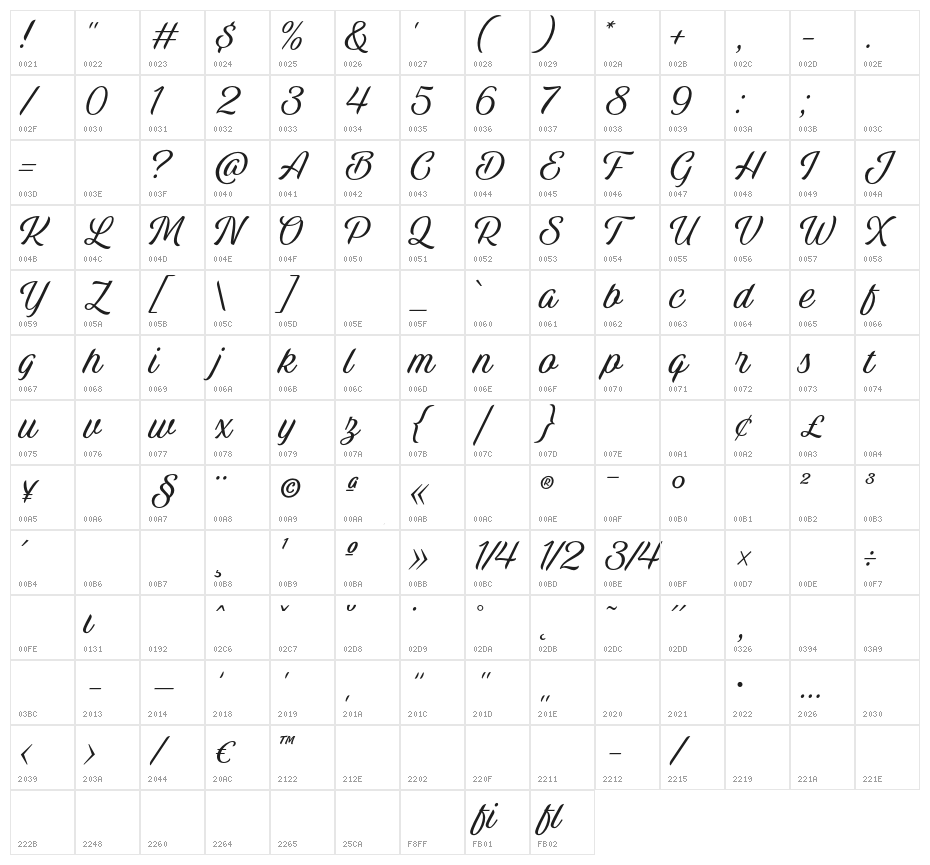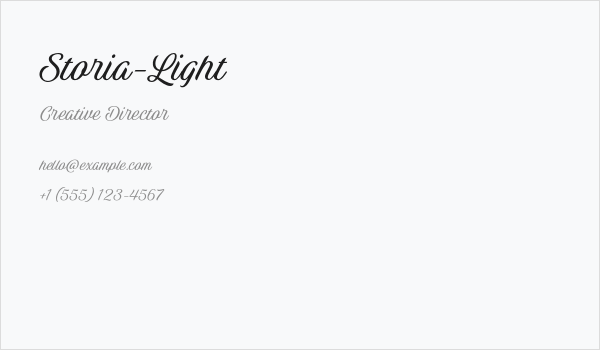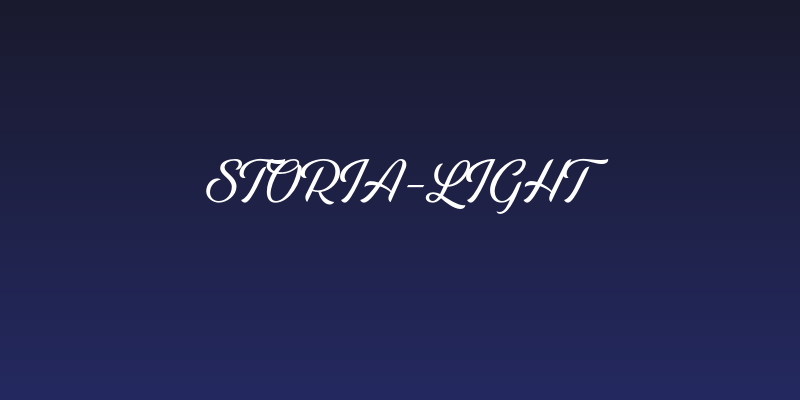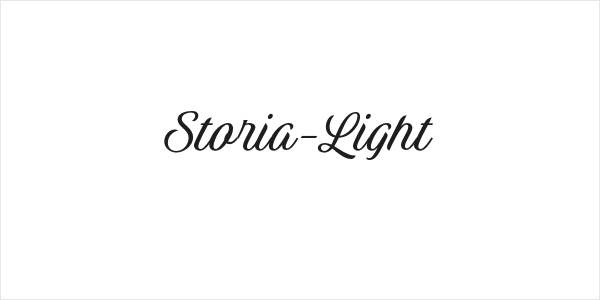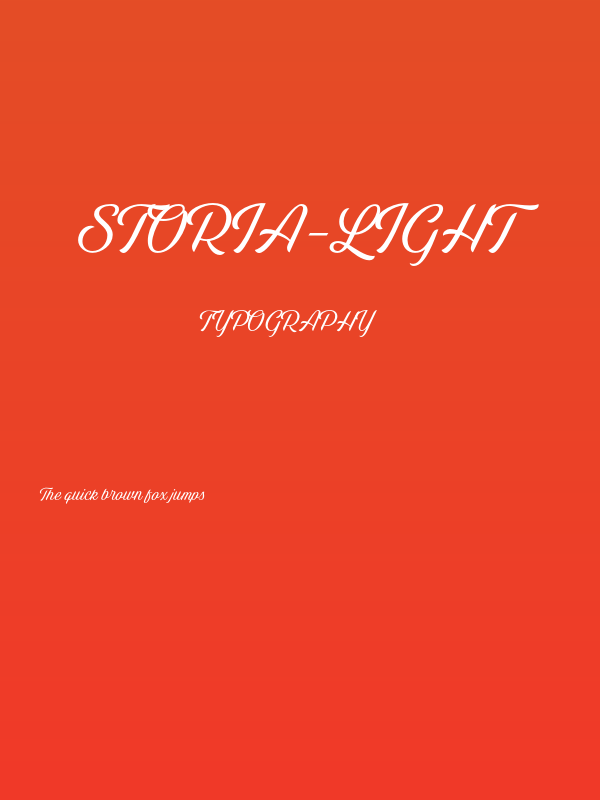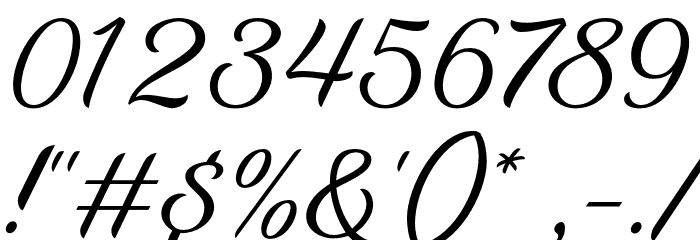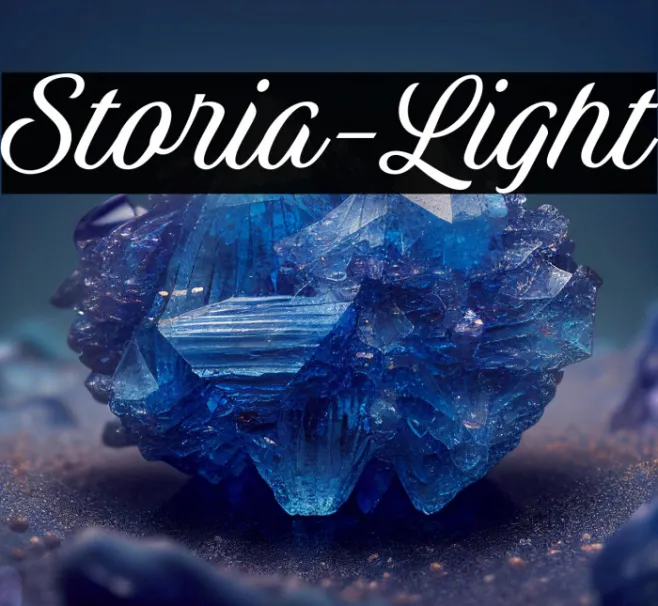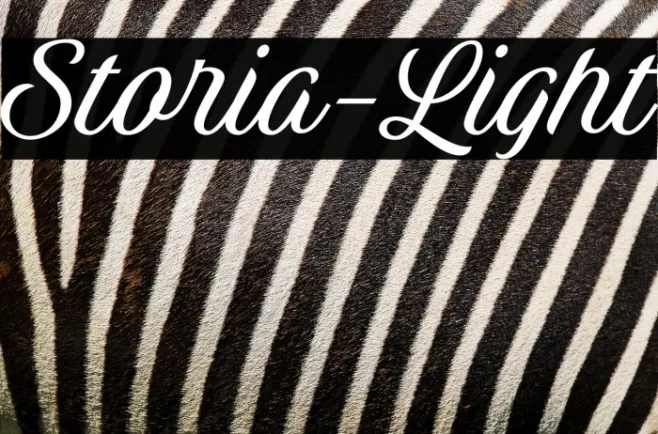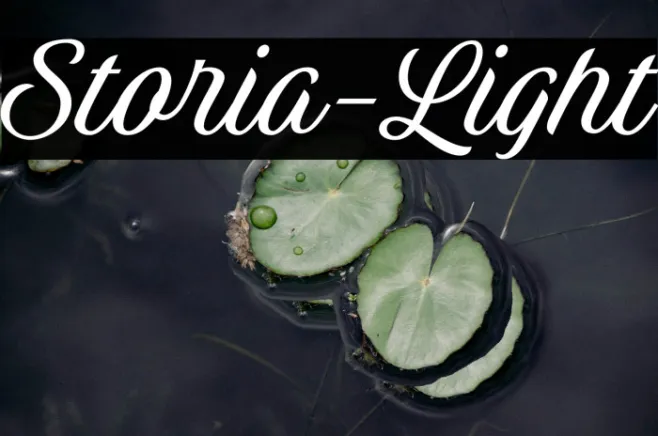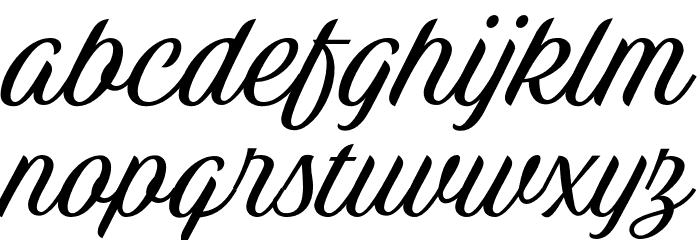
Storia-Light Font
Storia-Light Description
This font exudes elegance and sophistication with its flowing, cursive style. The characters are gracefully connected, creating a seamless and fluid appearance. The uppercase letters are slightly more ornate, with gentle curves and flourishes that add a touch of formality. The lowercase letters maintain a consistent rhythm, enhancing readability while preserving the script's artistic flair. Numbers are well-integrated, matching the overall aesthetic with their rounded forms. Special characters are thoughtfully designed, ensuring they complement the alphabetic characters. This font is perfect for projects that require a touch of elegance and style.